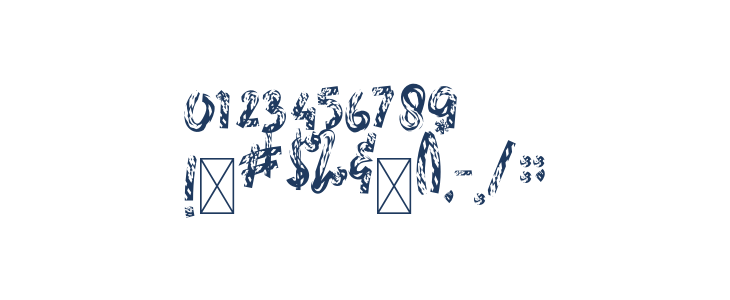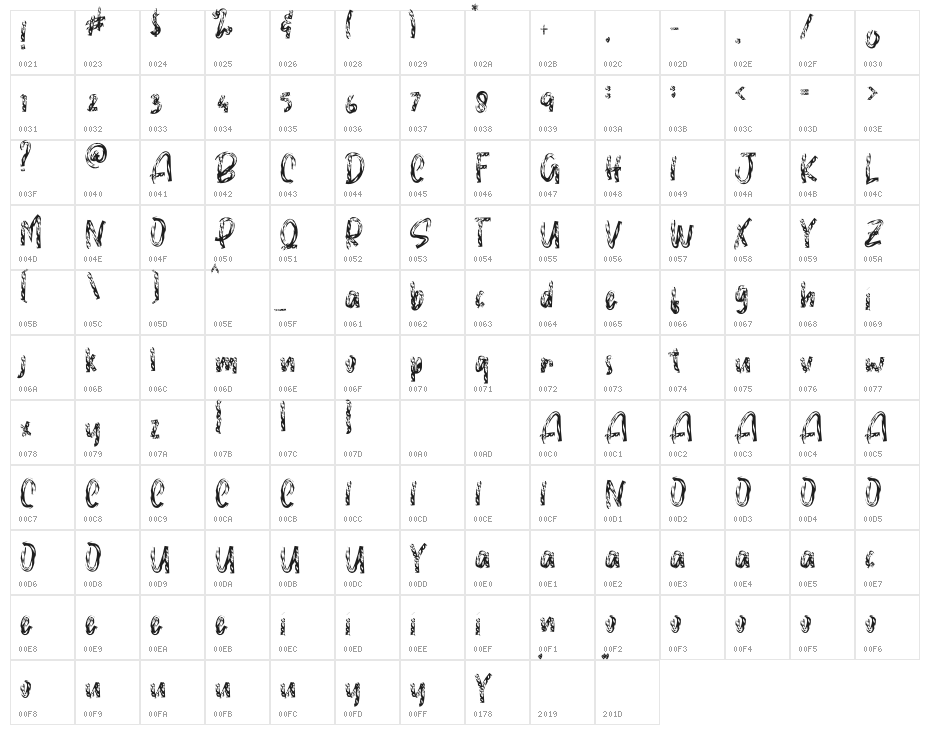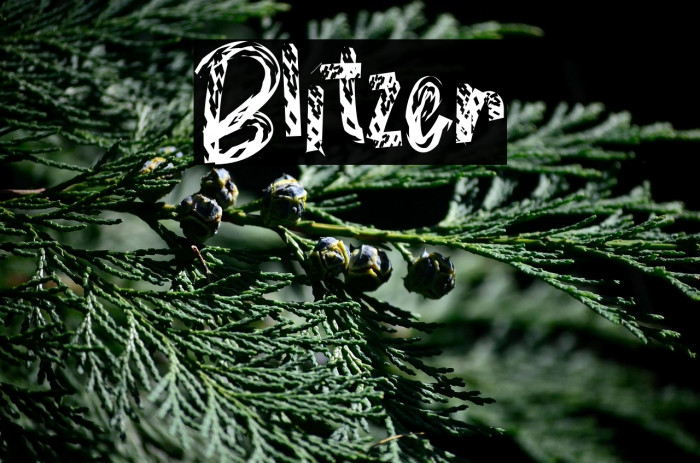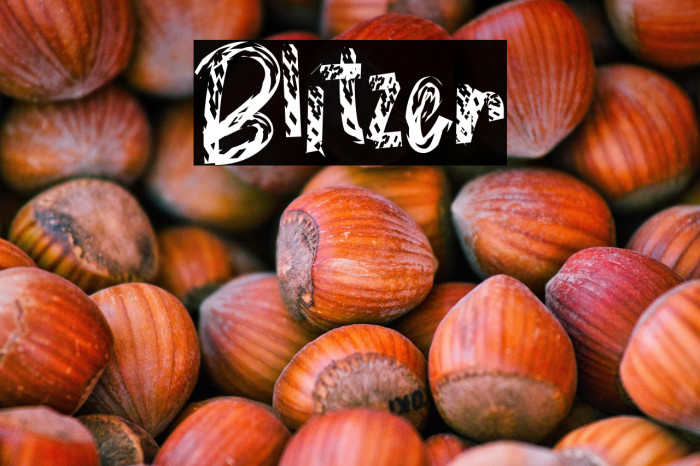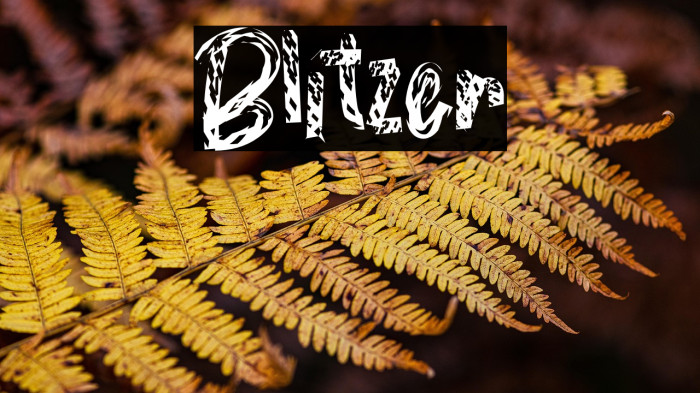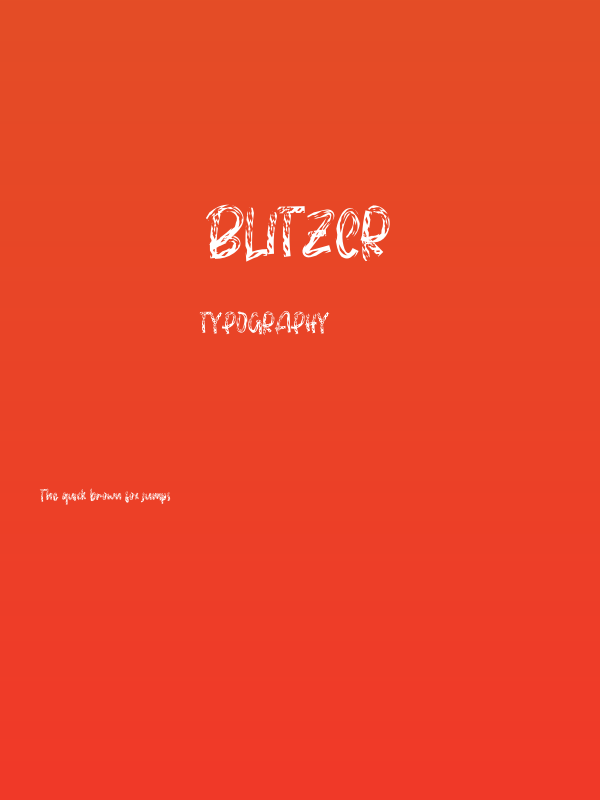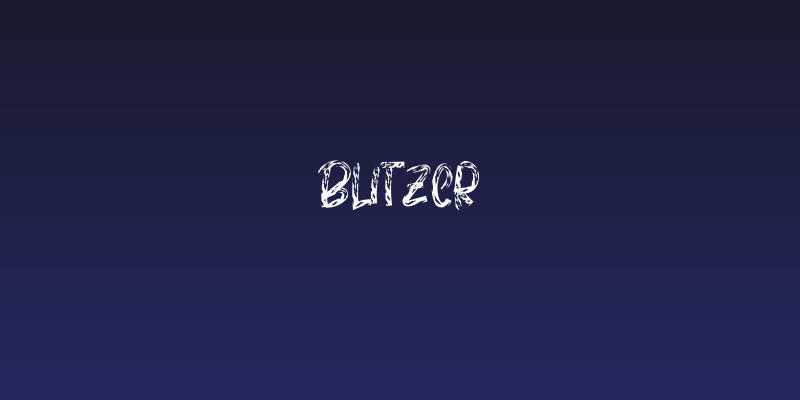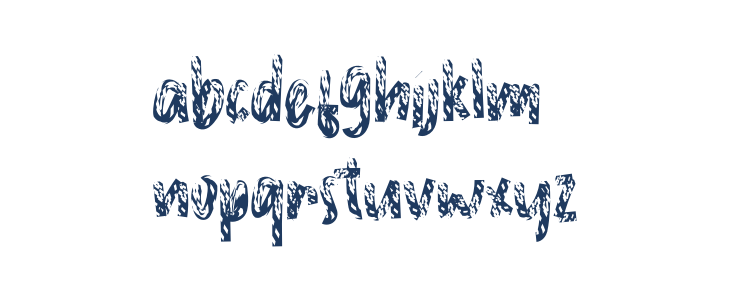
Blitzer Font
Blitzer Description
This font features a bold and dynamic brushstroke style, characterized by its rough, textured appearance. The letters have an energetic and chaotic feel, with irregular edges and varying thicknesses that create a sense of movement and intensity. The uppercase and lowercase letters maintain a consistent style, while the numbers and special characters follow the same expressive design. This font is visually striking and commands attention, making it suitable for projects that require a bold statement.
| Overall Style | Modern, Artistic |
| Use Case | Headlines, Logos, Artistic projects |
| Proposed Projects | Ideal for posters, album covers, graffiti art, and any project needing a bold, artistic touch. |